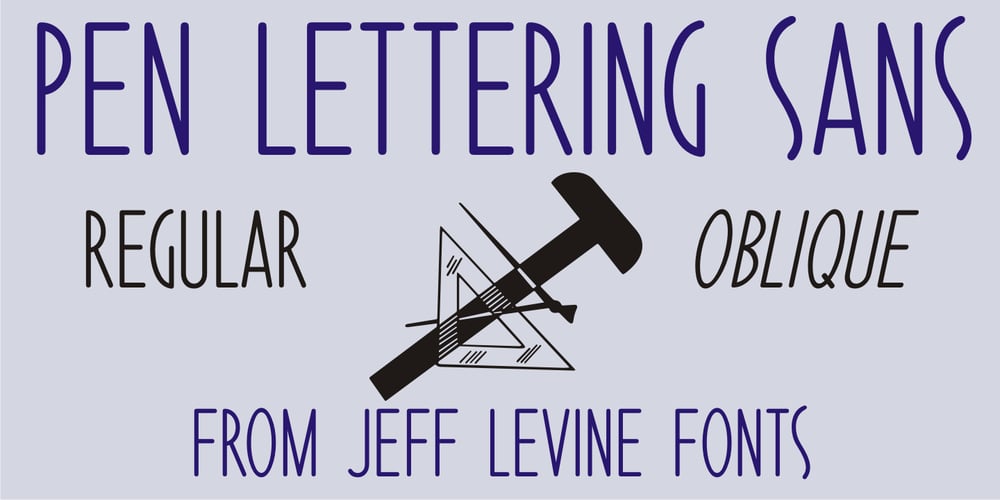
Pen Lettering Sans JNL
Pen Lettering Sans JNL font
Pen Lettering Sans JNL Font Family was designed by Jeff Levine and published by Jeff Levine. Pen Lettering Sans JNL contains 2 styles and family package options. A 1935 song with the unusual title of “Dinner for One Please, James” had its title hand lettered on the cover of the sheet music with simple, condensed letters made by a round point dip pen. This has been reproduced in a digital font as Pen Lettering Sans JNL, and is available in both regular and oblique versions.